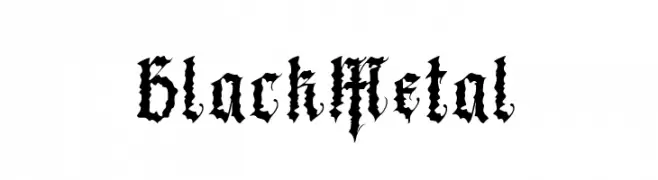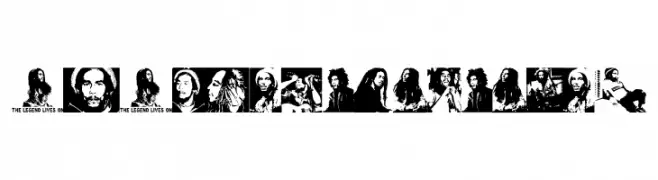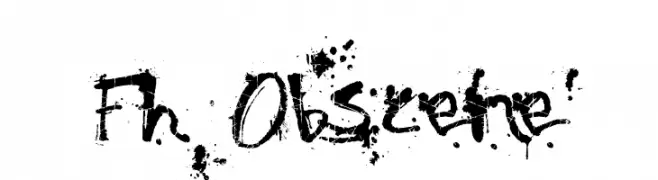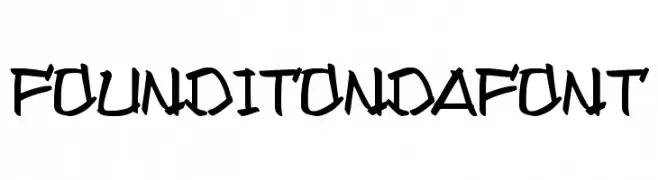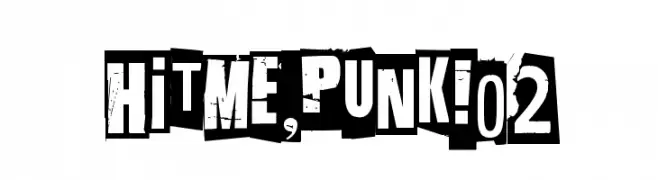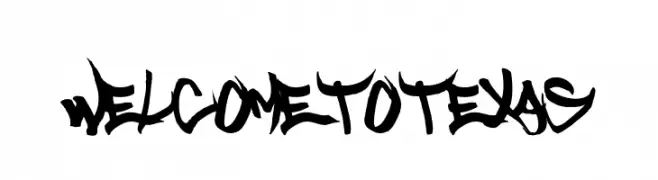
A bold, distressed font with a glitch effect, perfect for modern, edgy designs.
A bold, collage-style font with a punk rock, rebellious aesthetic.
A bold, italicized font with a reggae-inspired, dynamic style.
A jagged, edgy font with a hand-drawn, rebellious style.
Photo-collage display font with reggae music iconography.
A bold, graffiti-inspired font with a dynamic, hand-drawn style.
A grungy, distressed font with splattered ink effects and dynamic strokes.
A bold, graffiti-inspired font with sharp, angular lines and a rebellious aesthetic.
A gothic, black metal-inspired font with sharp, jagged characters.
A bold, graffiti-inspired font with dynamic, flowing lines and an urban edge.